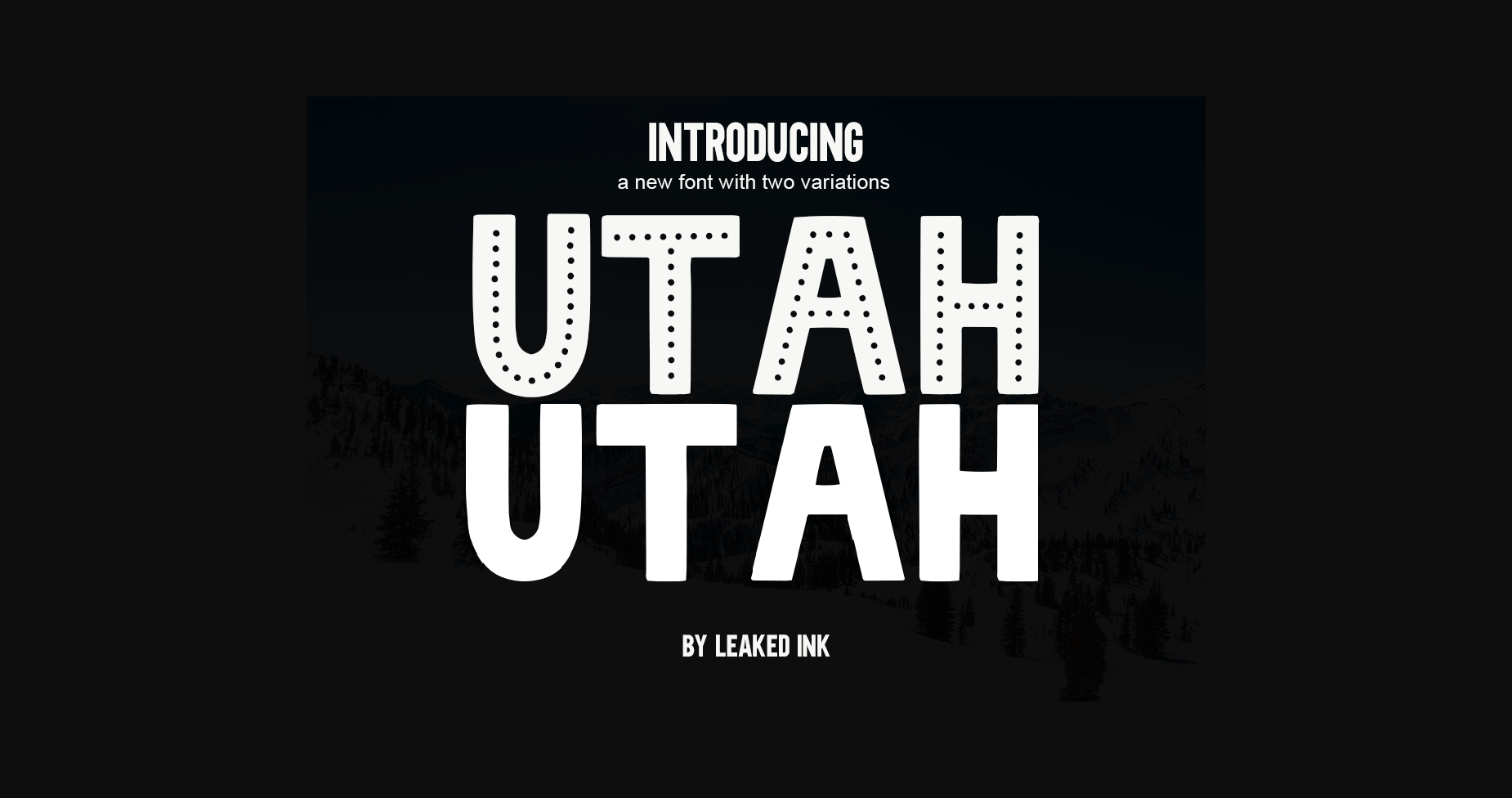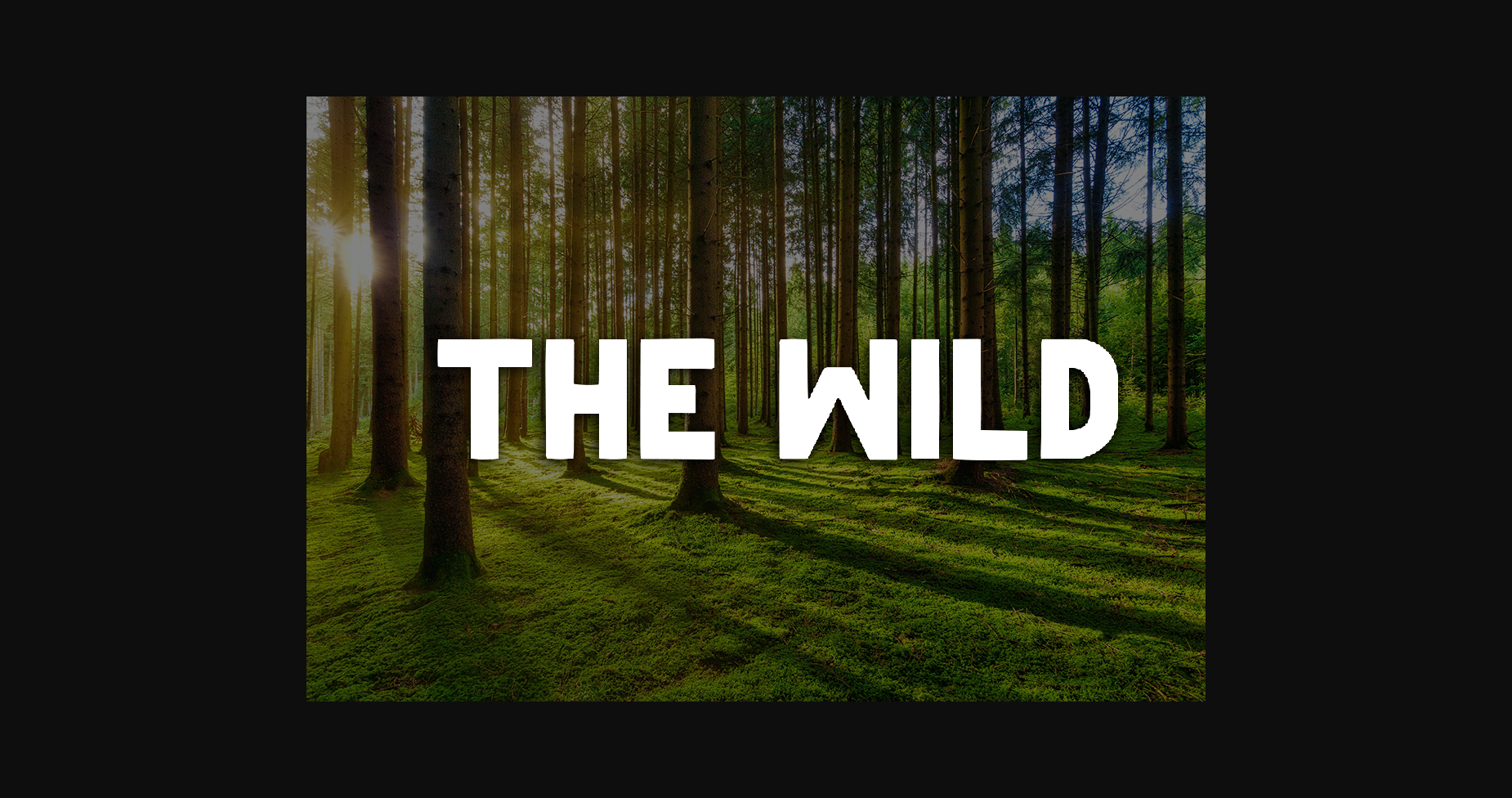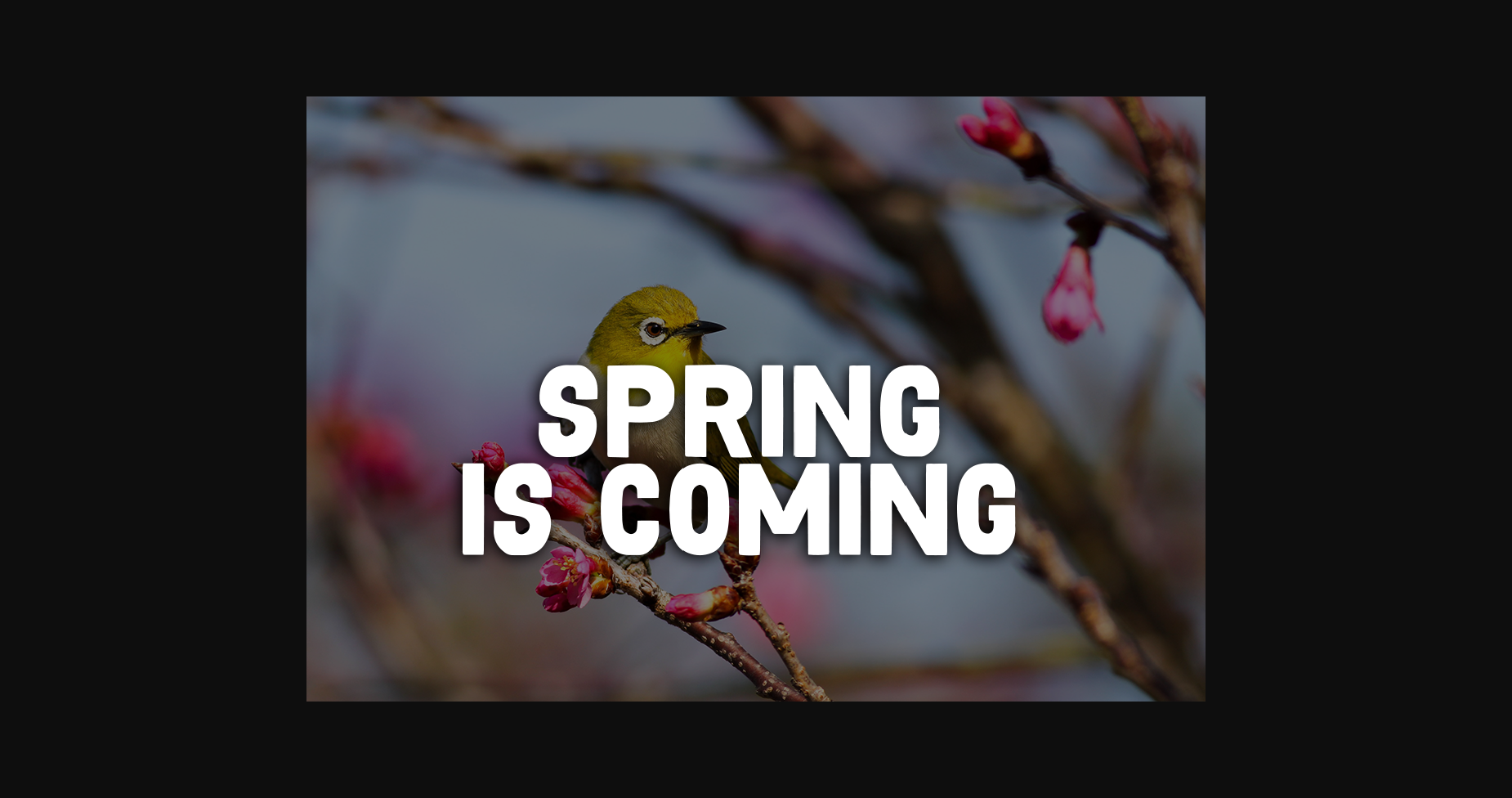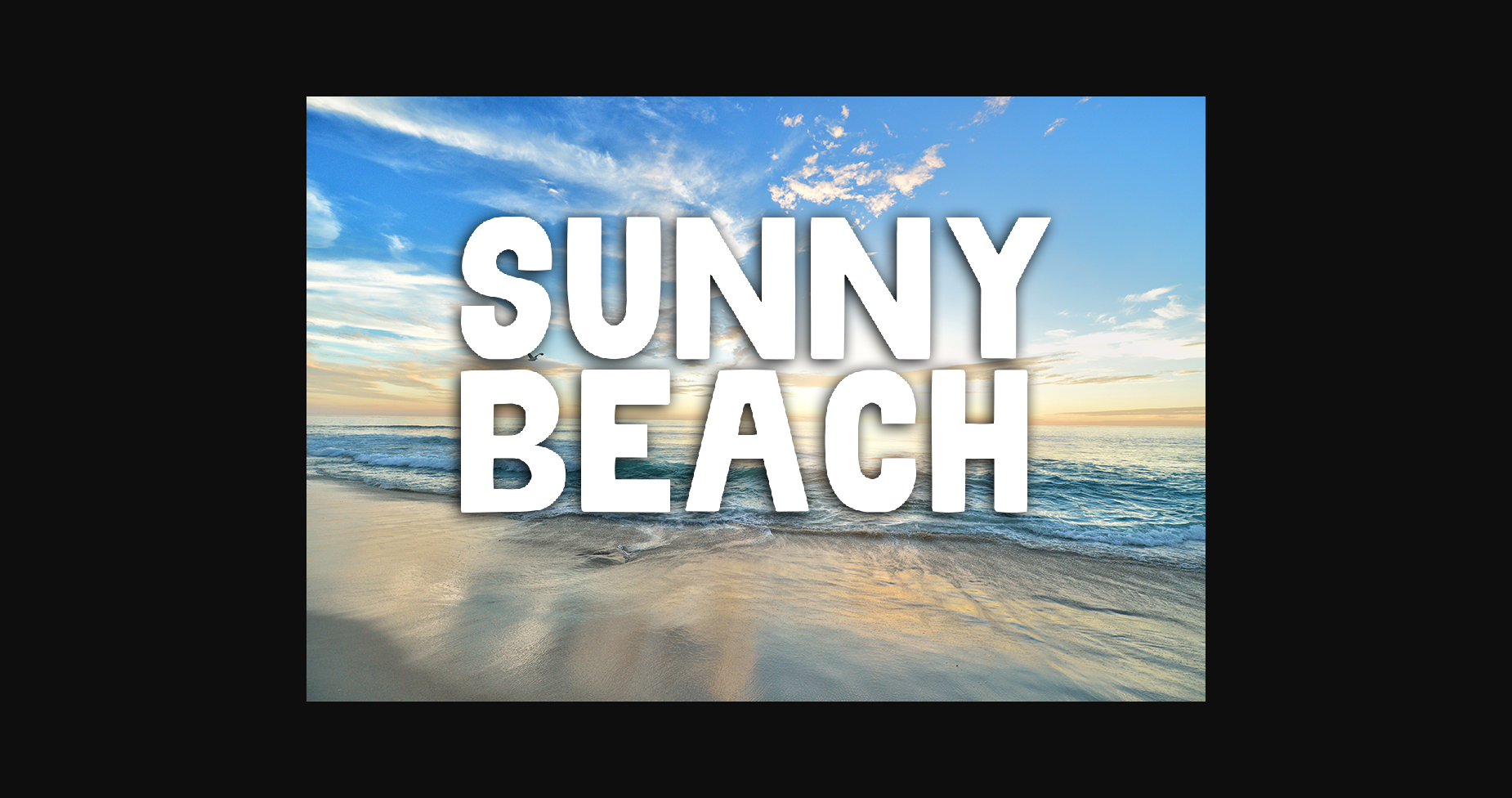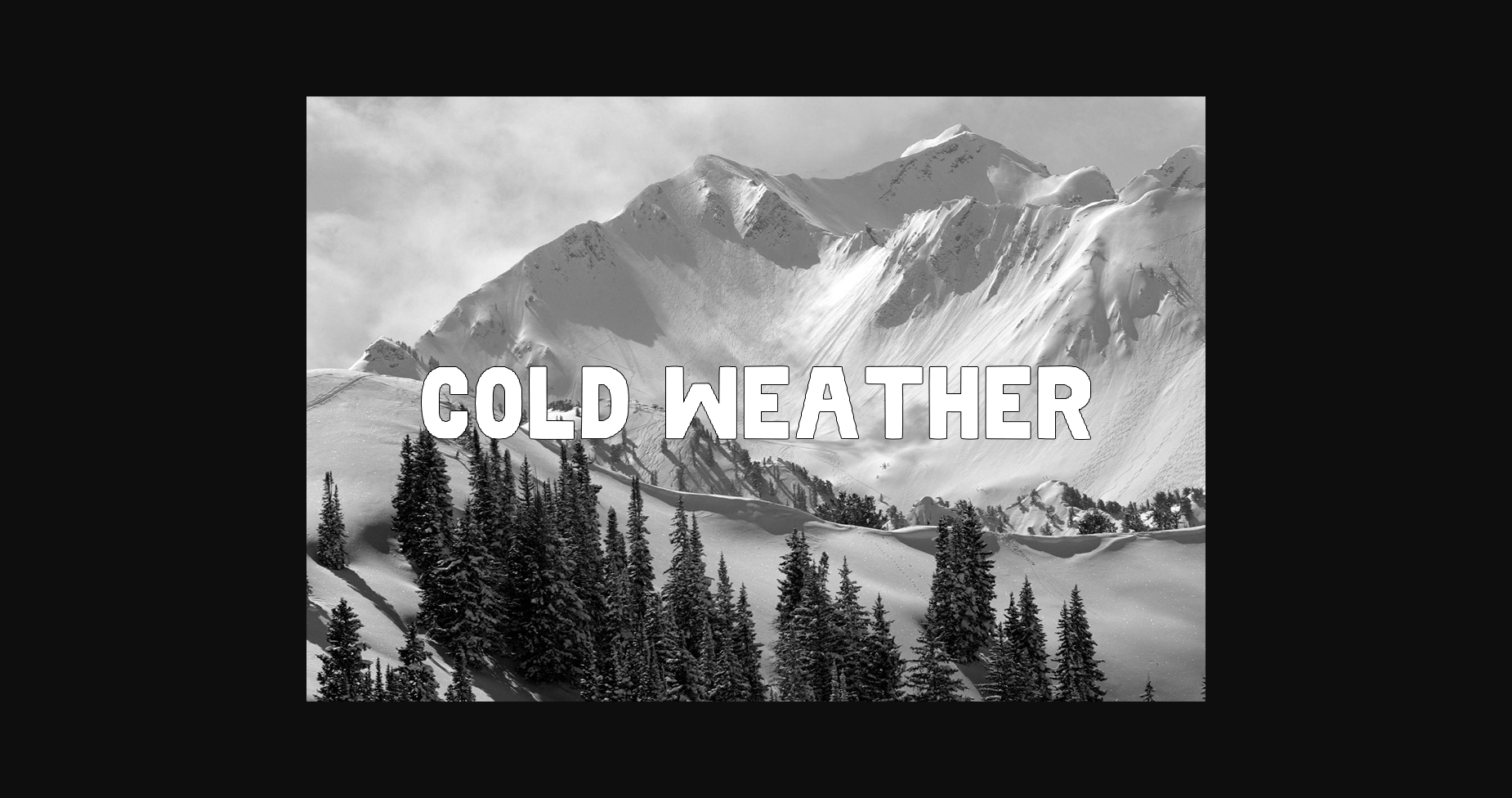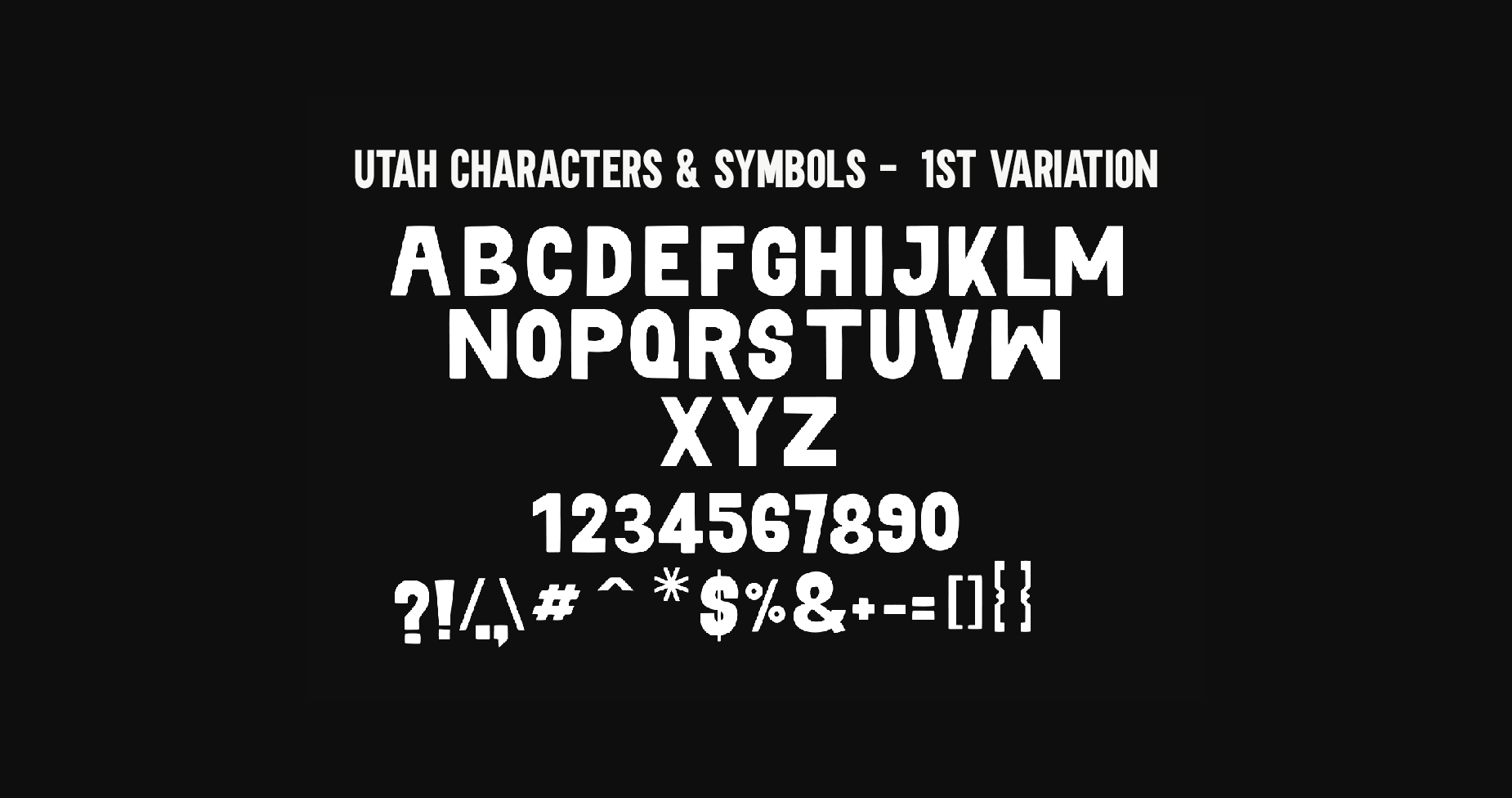
Utah Font
About Utah Font
Utah is a Sans Serif font. You can use it to create unique designs, book covers, birthday cards, T-shirts, greeting cards, as well as many other creations that require a cute, friendly vibe.